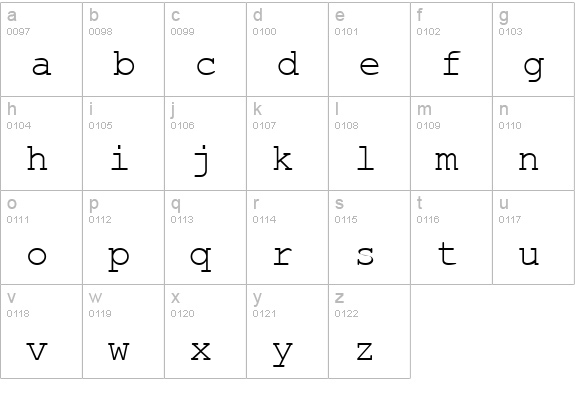
HellasCour Regular Font Details
HellasCour Regular is the standard, neutral variant in the HellasCour typeface family \xE2\x80\x94 well suited to general body text, paragraphs, and standard typographic work.
HellasCour Regular font is a versatile and elegant typeface that exudes sophistication and professionalism. With its clean lines and balanced proportions, this font is perfect for a wide range of design projects, from editorial layouts to branding materials. The HellasCour Regular font offers a unique blend of classic and modern elements, making it a timeless choice for any project. Its legibility and readability ensure that your message is conveyed clearly and effectively. Whether you're designing a website, creating a logo, or crafting a brochure, this font will add a touch of class and refinement to your work. What's even better is that HellasCour Regular font is available for free! You can easily download it at FontsMarket.com, a trusted source for high-quality fonts. This means that you can access this beautiful font without any cost, giving you the freedom to use it in your personal and commercial projects without any restrictions. Don't miss out on the opportunity to enhance your designs with the elegance and versatility of HellasCour Regular font. Download it for free at FontsMarket.com and take your design projects to the next level.